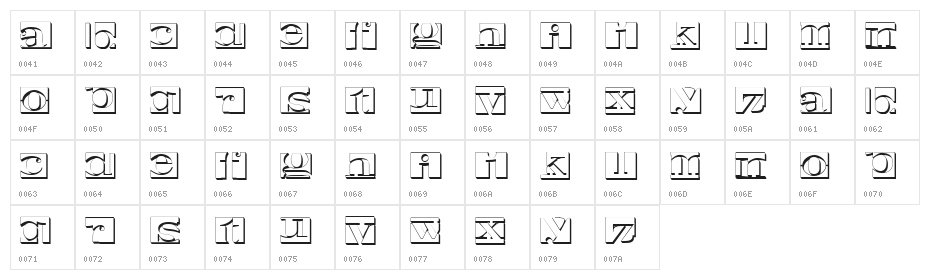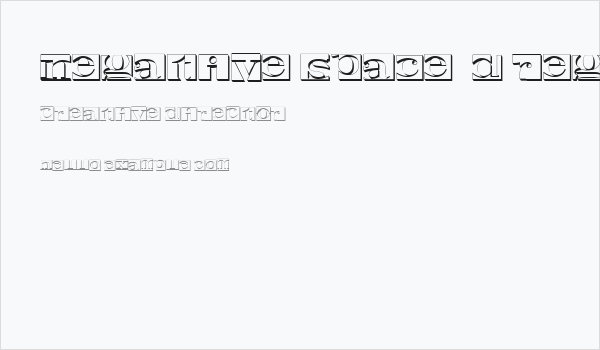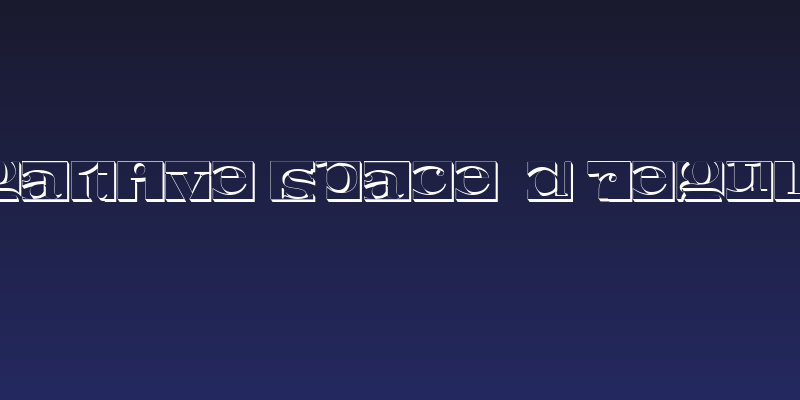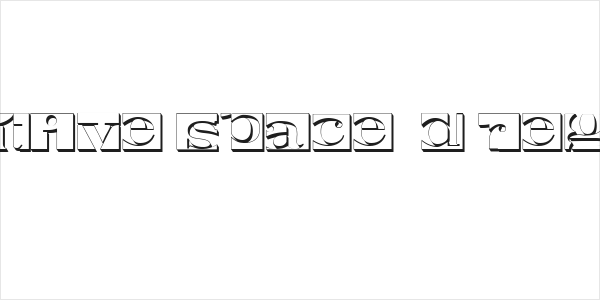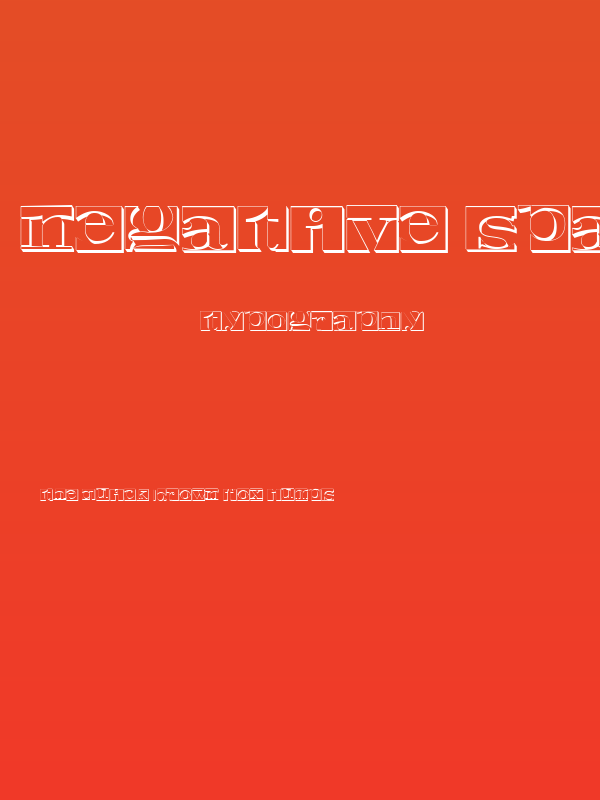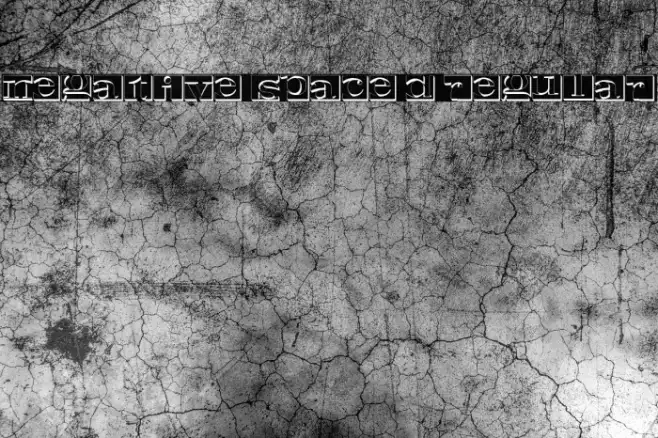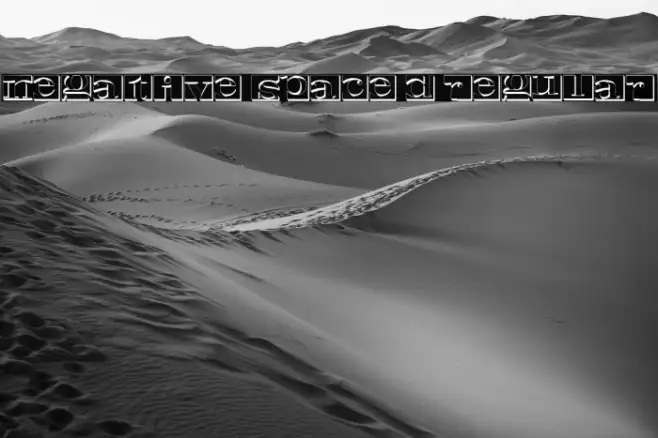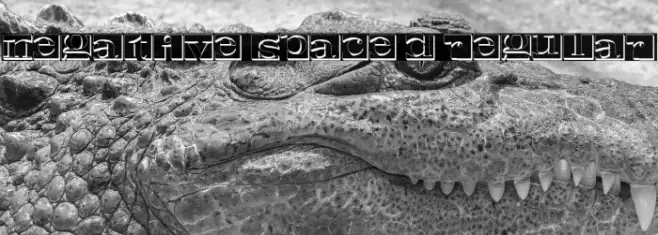
Negative Space 3D Regular Font
Negative Space 3D Regular Description
This font features a unique 3D effect created through the use of negative space, giving each letter a distinct and modern appearance. The characters are enclosed within a square-like structure, with parts of the letters cut out to form an intriguing visual effect. The design is bold and eye-catching, making it ideal for creative projects that require a standout typeface. The geometric nature of the font adds a contemporary feel, while the negative space adds depth and dimension. This font is particularly suitable for digital media, posters, and any design work that seeks to make a strong visual impact.